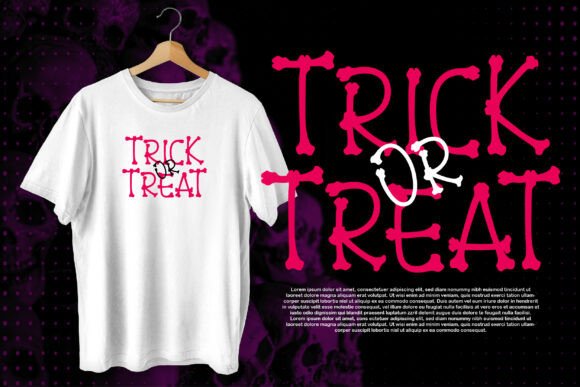
Bone Brush Font: Adding a Spooky Touch to Your Designs
The Bone Brush font is a unique and versatile typeface that can add a cheerful yet spooky touch to a variety of designs. With its wide range of applications, this playful font is perfect for creating eye-catching logos, t-shirt graphics, print designs, website headlines, and more. In this article, we’ll explore the features and benefits of the Bone Brush font and how it can be used to create a haunting allure in your designs.
What is Bone Brush Font?
Bone Brush font is a cheerful yet spooky typeface that is perfect for adding a thrilling twist to your designs. Its unique and playful style makes it an excellent choice for a variety of applications, from Halloween themes to spooky designs. The font’s versatility allows it to be used in a range of contexts, from logos and t-shirt graphics to print designs and website headlines.
Design Applications of Bone Brush Font
The Bone Brush font is adept at evoking interest and can be used in a variety of design applications, including:
- Logos: The Bone Brush font can be used to create eye-catching logos that add a spooky touch to your brand.
- T-shirt Graphics: The font’s playful style makes it perfect for creating t-shirt graphics that are sure to stand out.
- Print Designs: The Bone Brush font can be used to create a range of print designs, from flyers and posters to brochures and business cards.
- Website Headlines: The font’s unique style makes it perfect for adding a spooky touch to website headlines.
- Photo Frames: The Bone Brush font can be used to add a haunting allure to photo frames.
- Flyers: The font’s playful style makes it perfect for creating eye-catching flyers.
- Music Album Covers: The Bone Brush font can be used to create spooky and eye-catching music album covers.
- Posters: The font’s unique style makes it perfect for creating posters that add a thrilling twist to your designs.
- Image Sliders: The Bone Brush font can be used to add a haunting allure to image sliders.
Benefits of Using Bone Brush Font
The Bone Brush font offers a range of benefits, including:
- Unique Style: The font’s unique and playful style makes it perfect for adding a spooky touch to your designs.
- Versatility: The Bone Brush font can be used in a range of contexts, from logos and t-shirt graphics to print designs and website headlines.
- High-Quality: The Bone Brush font is a high-quality typeface that is perfect for creating professional-looking designs.
Tips for Using Bone Brush Font
Here are some tips for using the Bone Brush font:
- Use it Sparingly: The Bone Brush font is a bold and eye-catching typeface, so it’s best to use it sparingly to avoid overwhelming your design.
- Pair it with Other Fonts: The font can be paired with other fonts to create a unique and interesting design.
- Experiment with Different Colors: The Bone Brush font can be used with a range of colors to create a unique and eye-catching design.
- Use it to Create Contrast: The font’s bold and playful style makes it perfect for creating contrast in your design.
Common Uses of Bone Brush Font
The Bone Brush font is commonly used for:
- Halloween Themes: The font’s spooky and playful style makes it perfect for Halloween themes.
- Spooky Designs: The Bone Brush font can be used to create a range of spooky designs, from creepy posters to haunted house flyers.
- Horror Movies: The font’s bold and eye-catching style makes it perfect for horror movie posters and titles.
- Thriller Novels: The Bone Brush font can be used to create eye-catching covers for thriller novels.
The Bone Brush font is a unique and versatile typeface that can add a cheerful yet spooky touch to a variety of designs. With its wide range of applications and ease of use, this playful font is perfect for creating eye-catching logos, t-shirt graphics, print designs, website headlines, and more. Whether you’re creating a Halloween theme or a spooky design, the Bone Brush font is sure to leave its own unique mark.